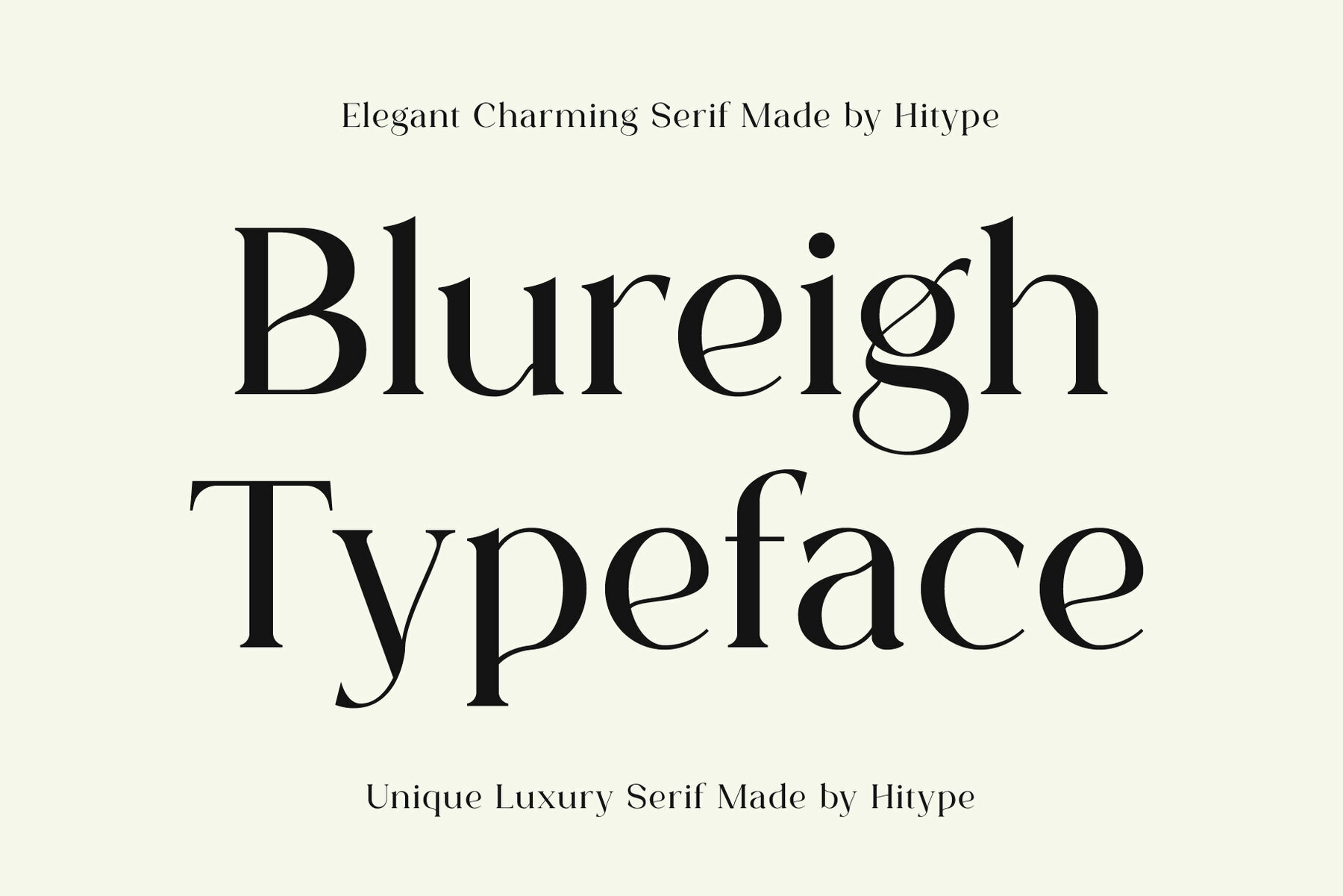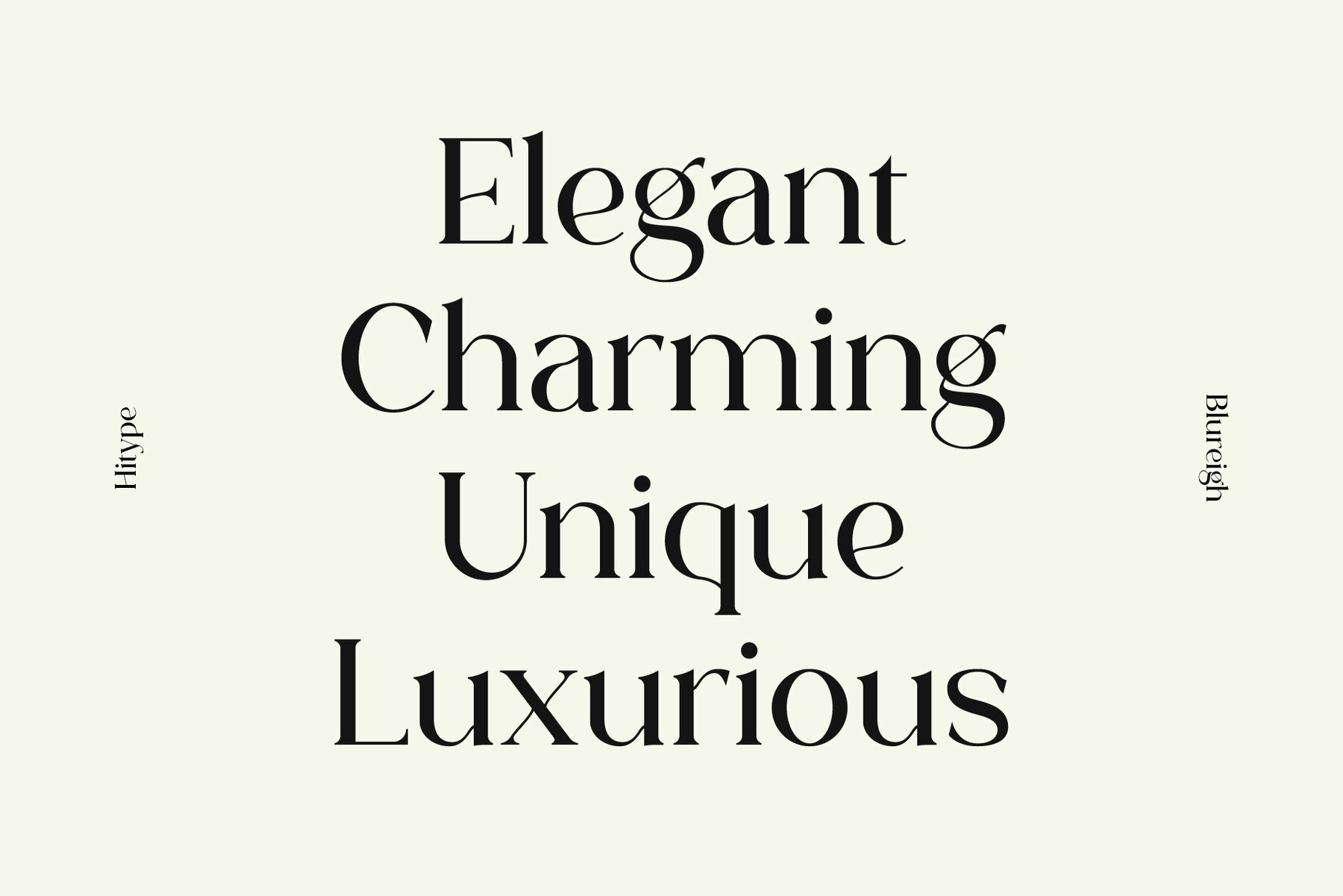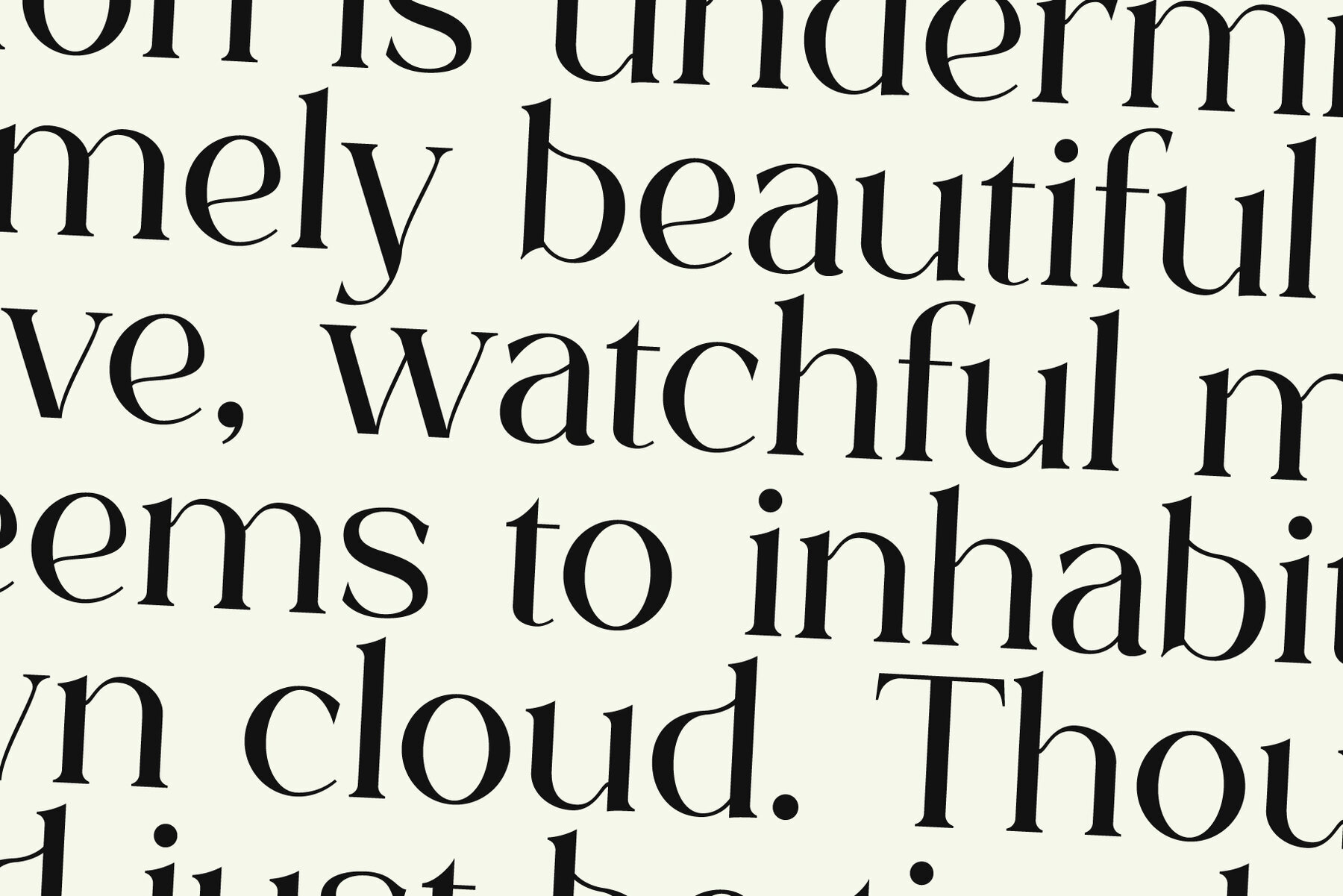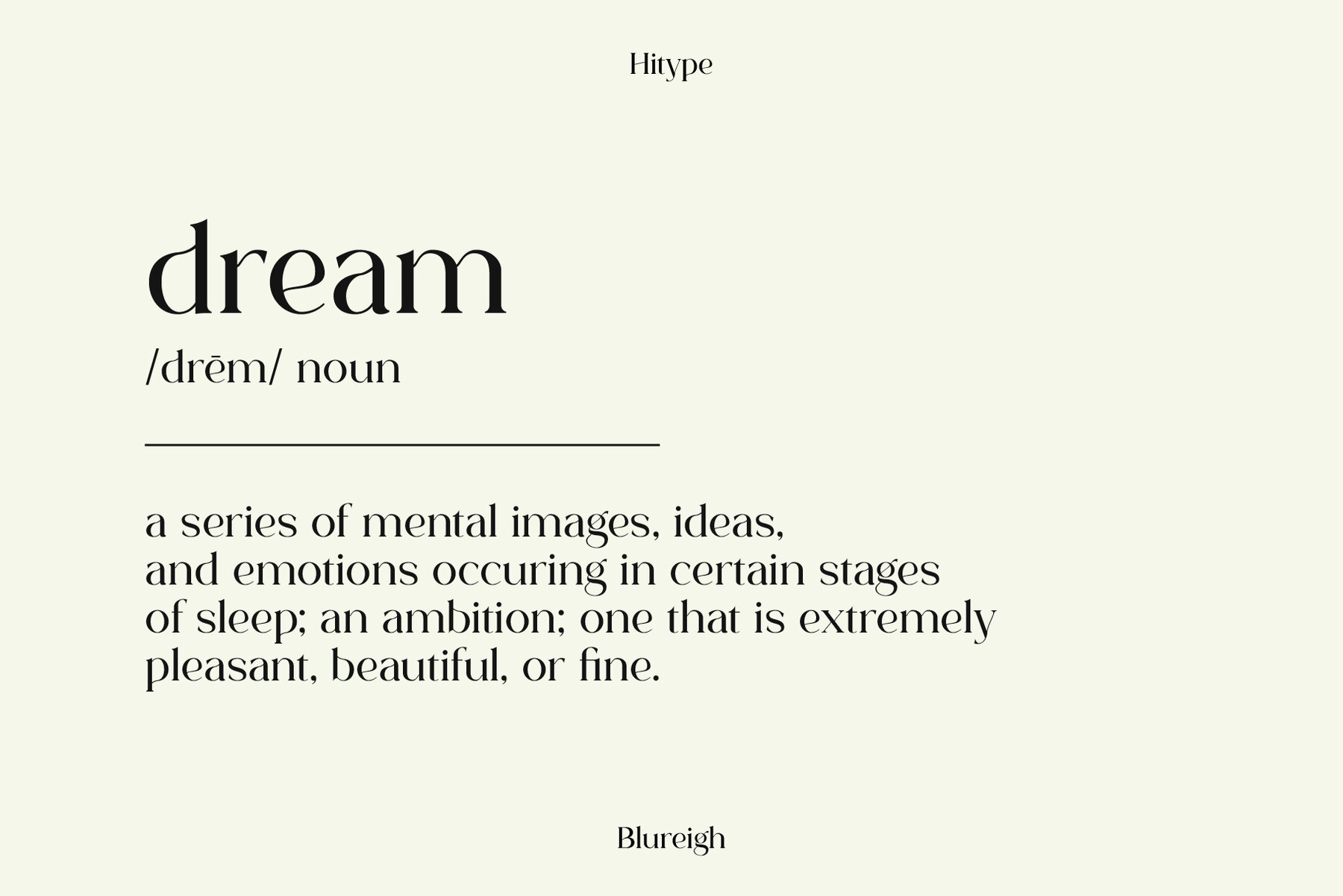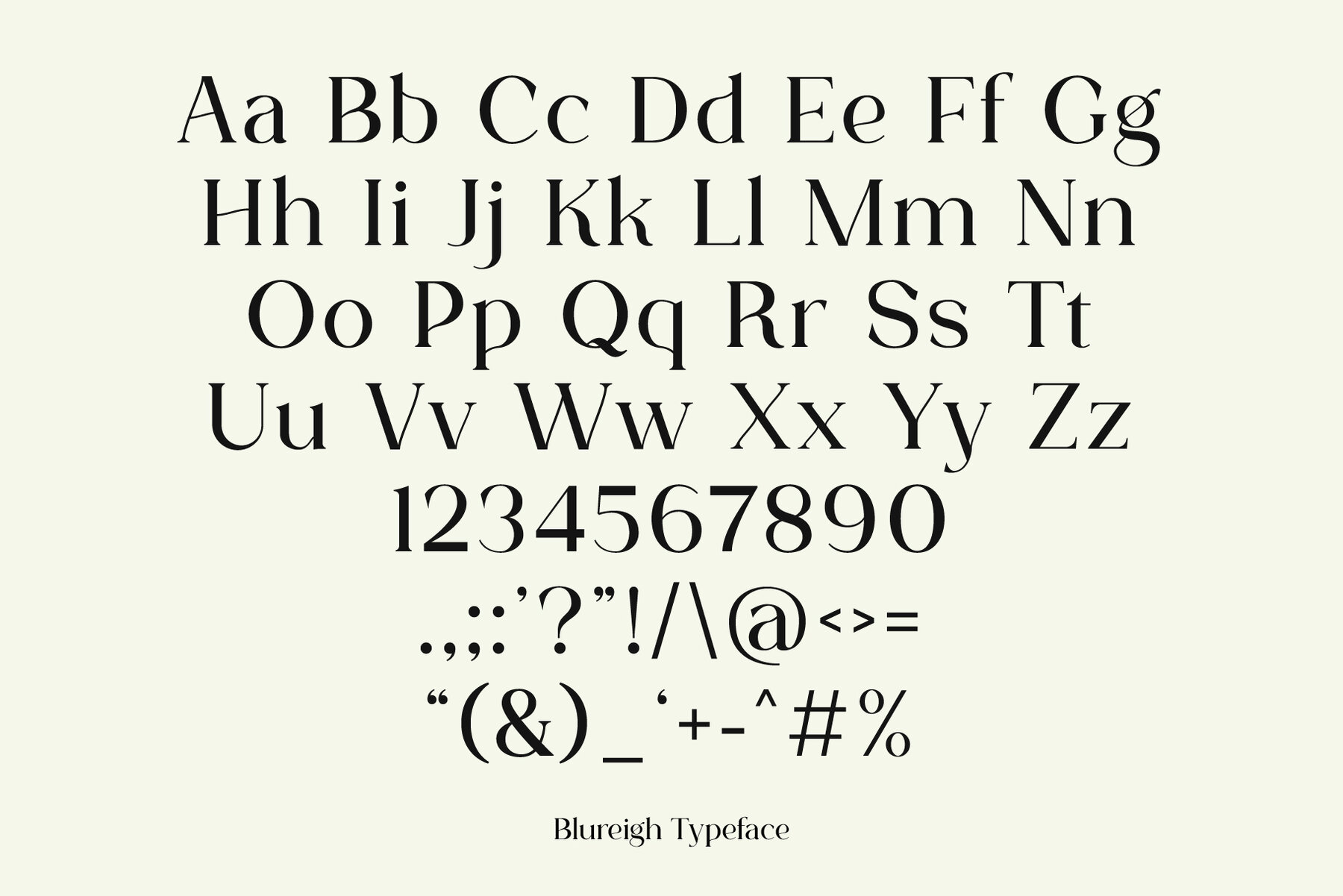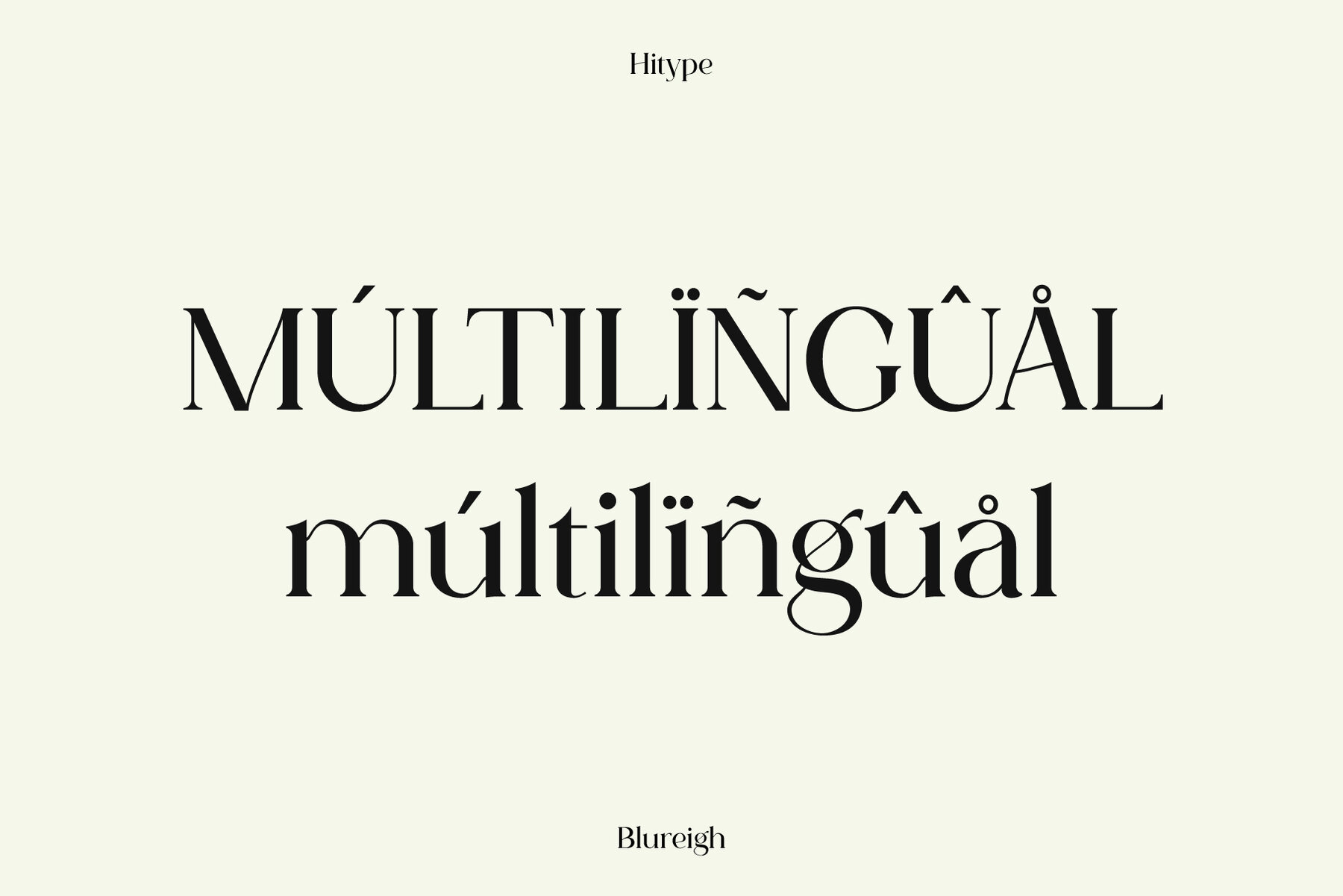
Blureigh
Meet Blureigh, an elegant serif typeface that marries refined charm with a contemporary flair. Delicate curves and graceful proportions of this font create an aura of sophistication, making it the perfect choice for luxury branding, editorials, invitations, packaging, and stylish logos. Blureigh's unique style and timeless elegance add a graceful voice to any creative venture, seamlessly adapting to both print and digital mediums.Blureigh: A Timeless Serif Typeface